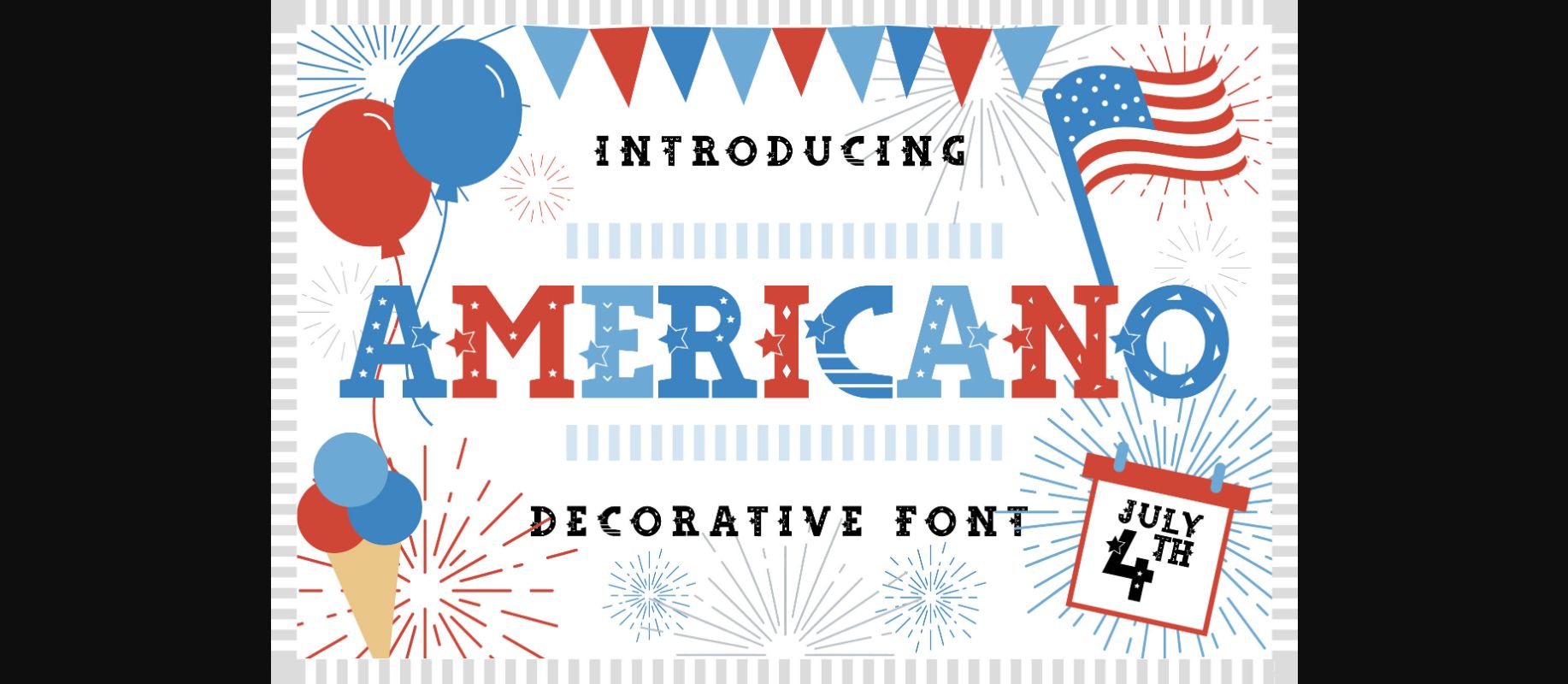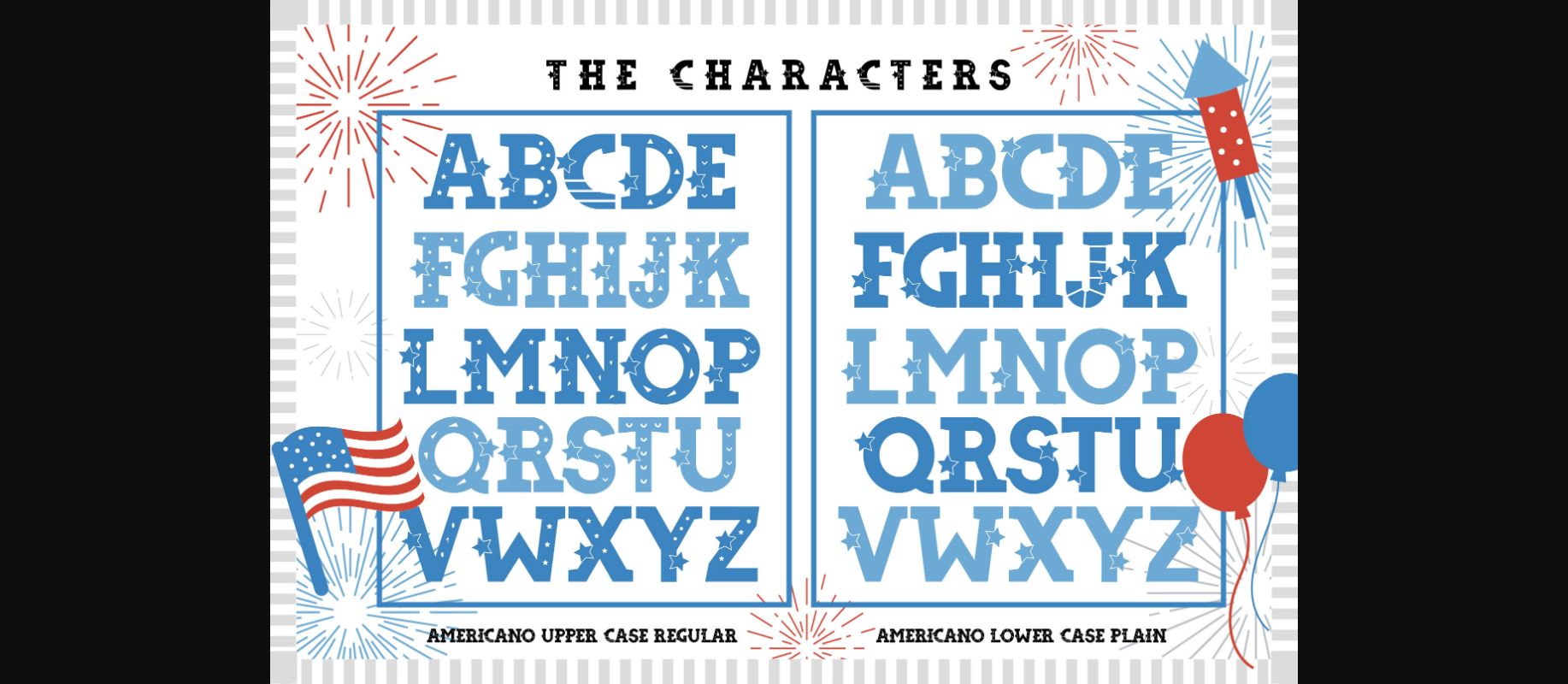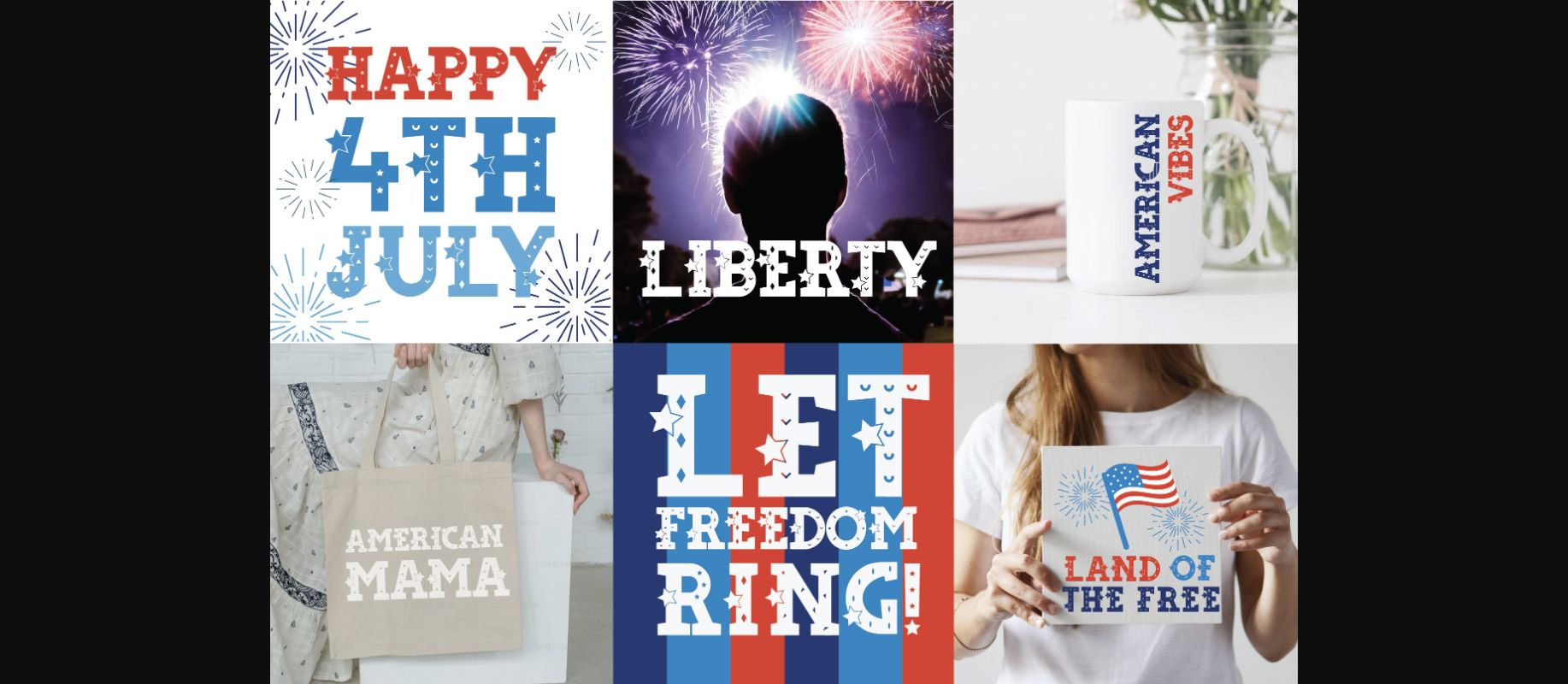
Americano Font
About Americano Font
Americano is a 4th of July decorative theme font. It has 2 styles, the one with decoration inside, and the one with no decoration at all. It is perfect for your 4th July project, make your design with this decorative font to celebrate the day!